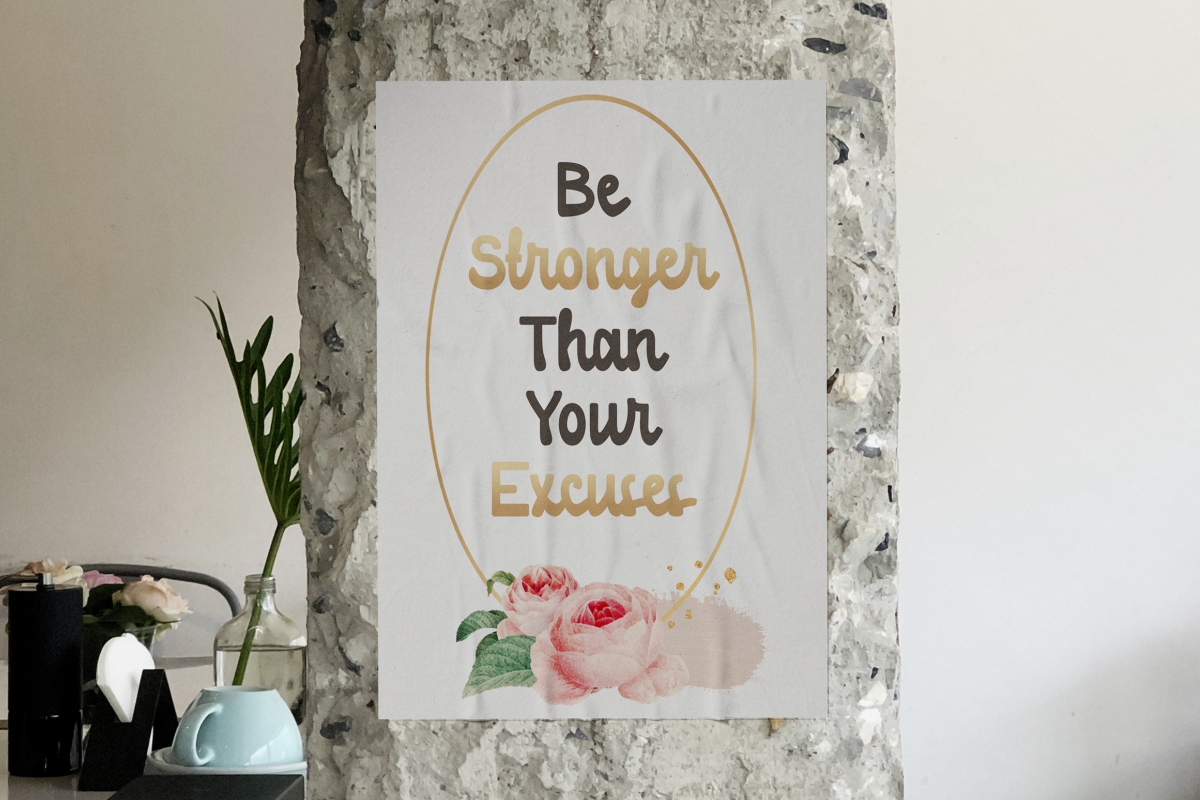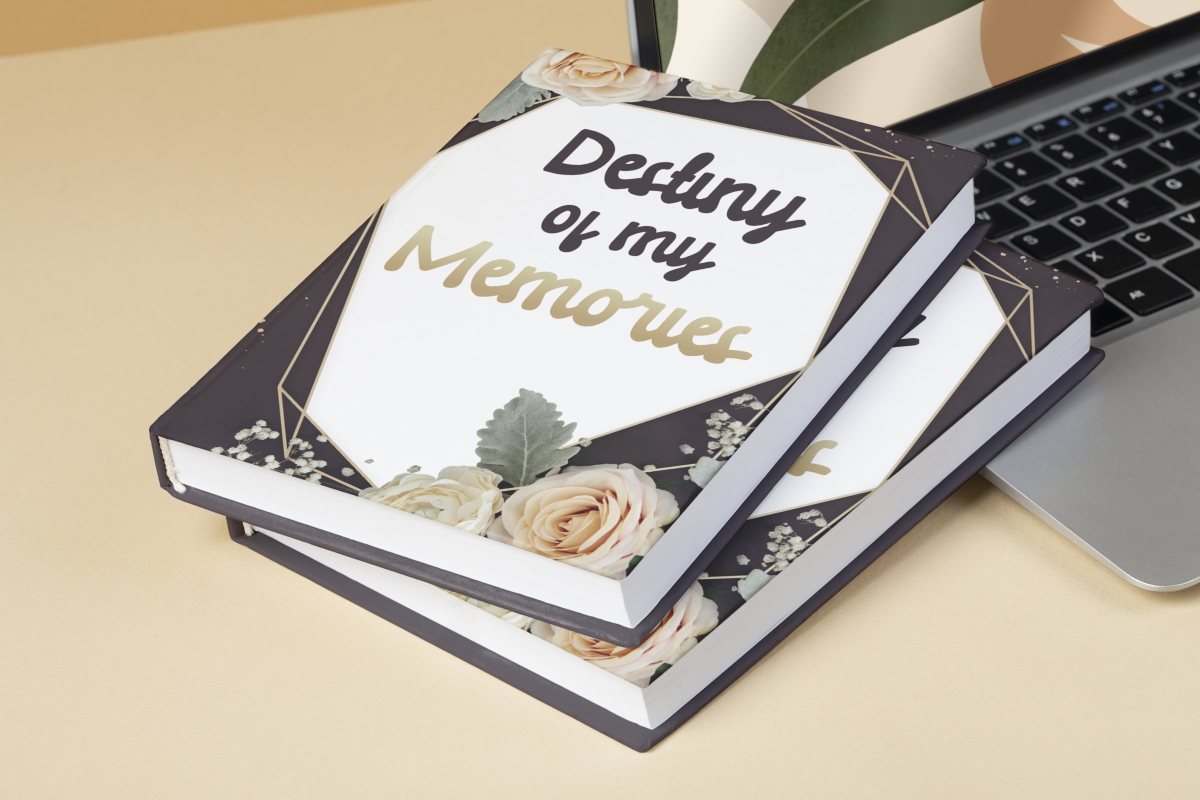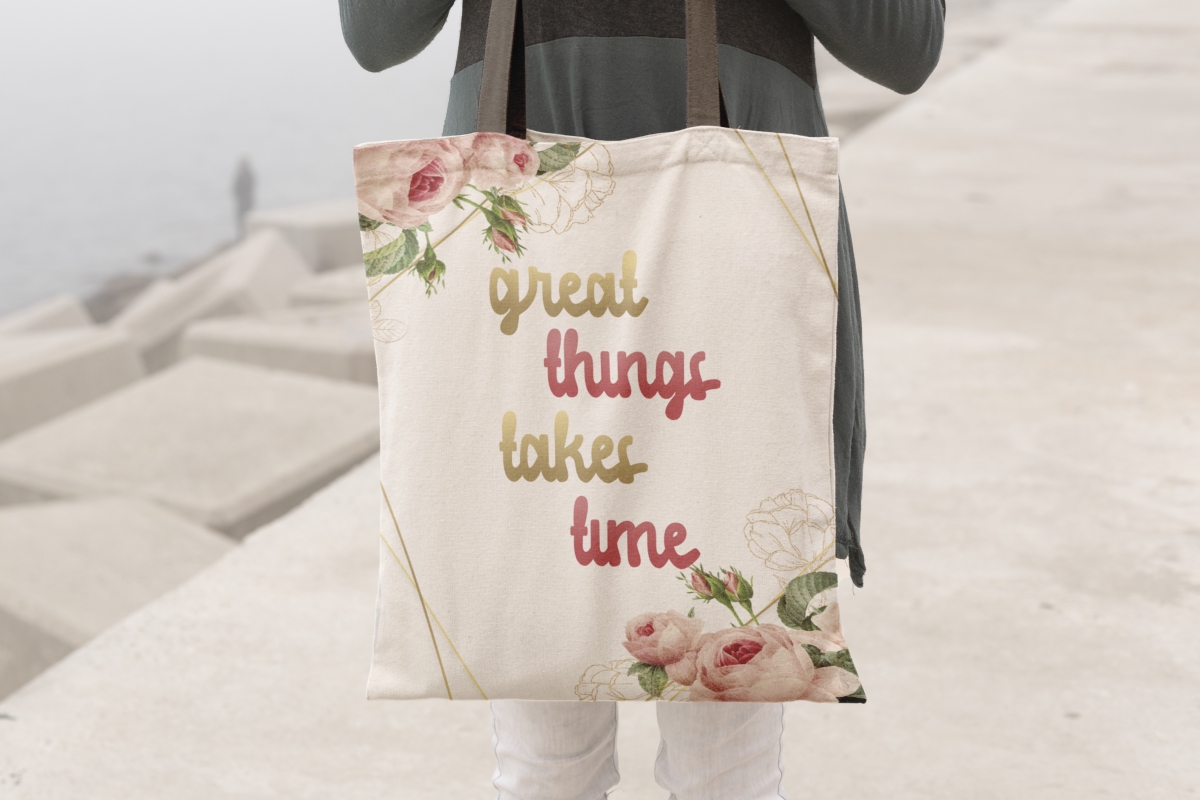
New Guarda Font
New Guarda Script Font is a bold handwriting script font with handwriting look, created by CalligraphyFonts. This script has thick and awesome brushes which makes it unique. So it will exude elegance for your creative projects, such as book cover, brand logo, label, menu, poster, quote, skin care packaging, screen printing, stationery, title, etc.